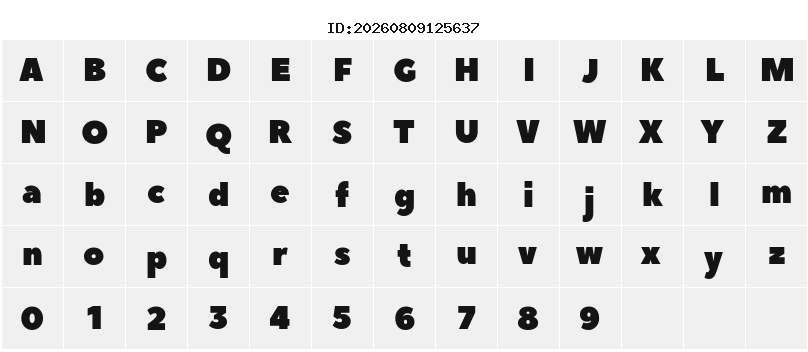
• Designer: Sergey Ryadovoy & Jovanny Lemonad
Peace Sans.ttf is a modern, elegant sans-serif font designed for ultimate readability and visual harmony. Perfect for branding, headlines, web design, and print materials.